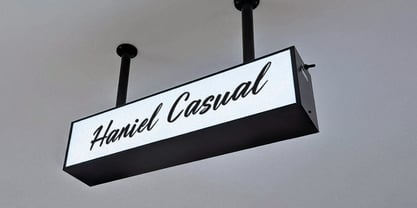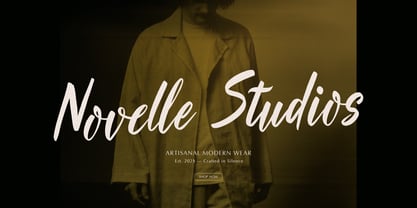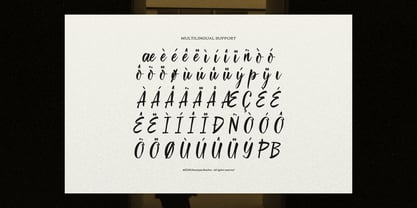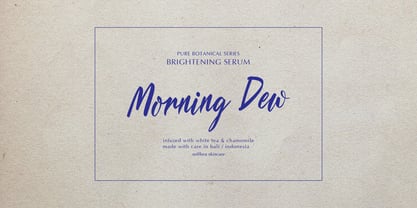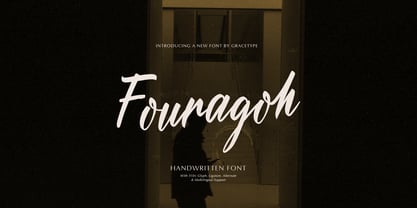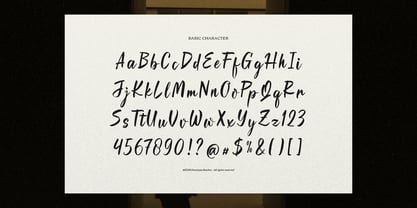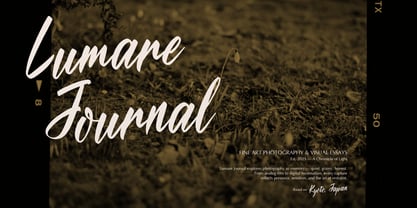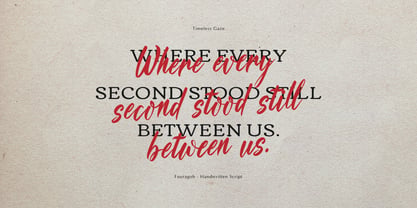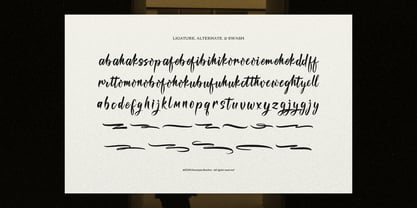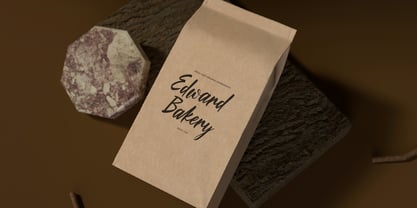
Fouragoh
by Tini Fitriani
The Fouragoh Font Family was designed by and published by Tini Fitriani. Fouragoh contains 2 styles and family package options. More about this family
Fouragoh | Handwritten Script, from Gracetypestudio, suitable for any projects such as: logos, branding projects, homeware designs, product packaging, mugs, quotes, posters, shopping bags, t-shirts, book covers, name card, invitation cards, greeting cards, label, photography, watermark, special events, and all your other lovely projects that need a Script taste.